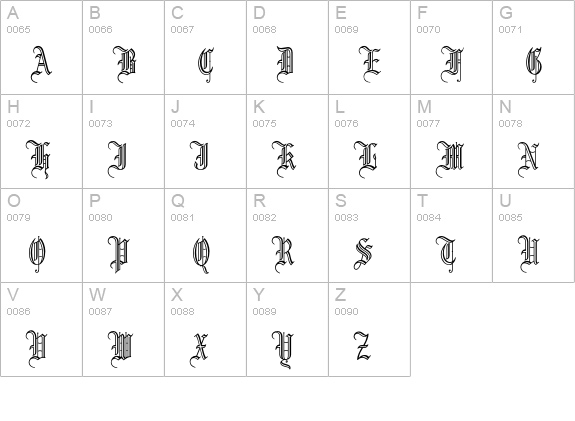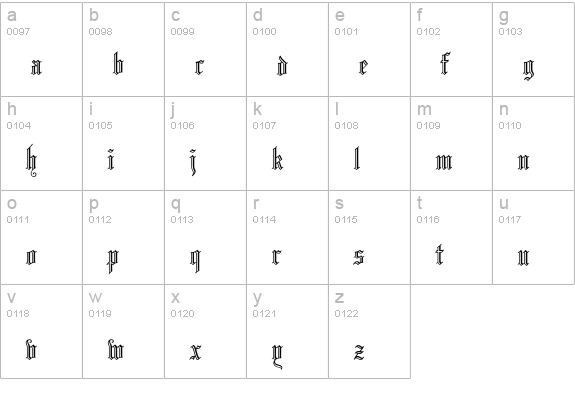
OPTILeonTextC Font Details
The OPTILeonTextC font is a versatile and elegant typeface that exudes sophistication and charm. With its sleek lines and classic design, this font is perfect for a wide range of design projects, from invitations to branding materials. The clean and timeless look of OPTILeonTextC makes it a favorite among designers looking to add a touch of refinement to their work. What's even better is that OPTILeonTextC is completely free to download! You can get your hands on this stunning font at FontsMarket.com, where you'll find a treasure trove of high-quality fonts for all your creative needs. Don't miss out on the opportunity to elevate your designs with OPTILeonTextC – download it today and let your creativity shine!